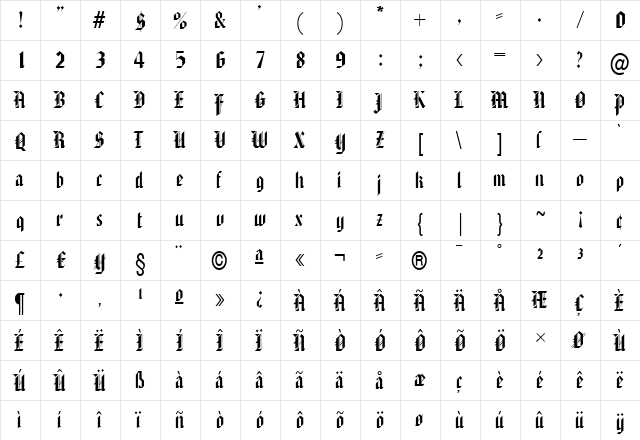
JasmineBecker Regular Font Preview
JasmineBecker Regular
JasmineBecker Regular Font Details
Design Context for JasmineBecker Typeface
JasmineBecker is a composed and adaptable typeface that performs quietly and consistently across a wide range of design contexts.